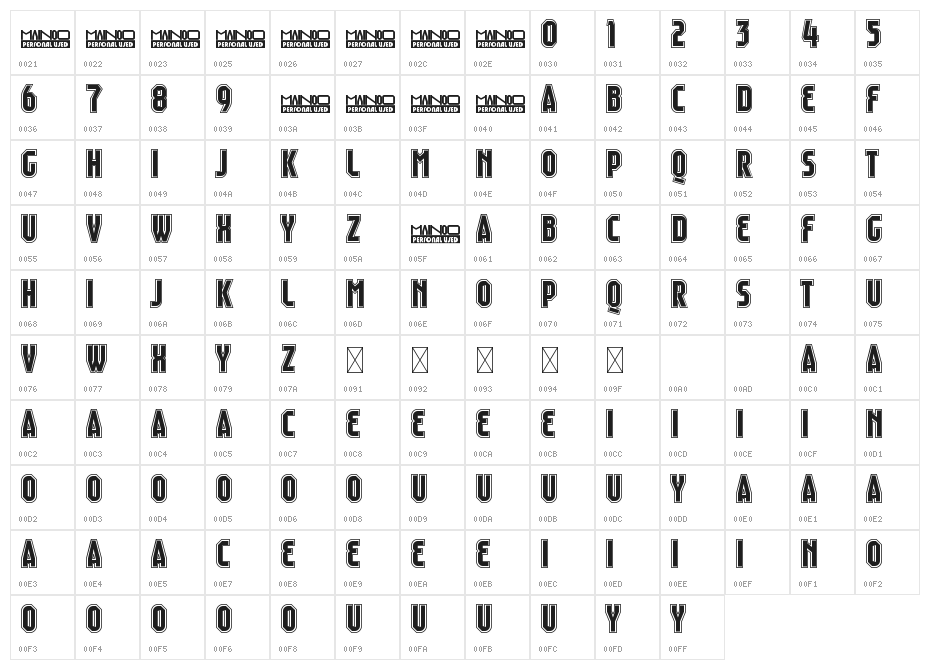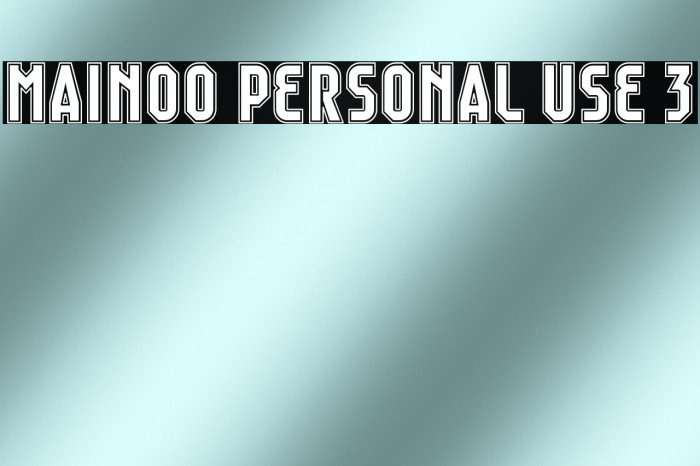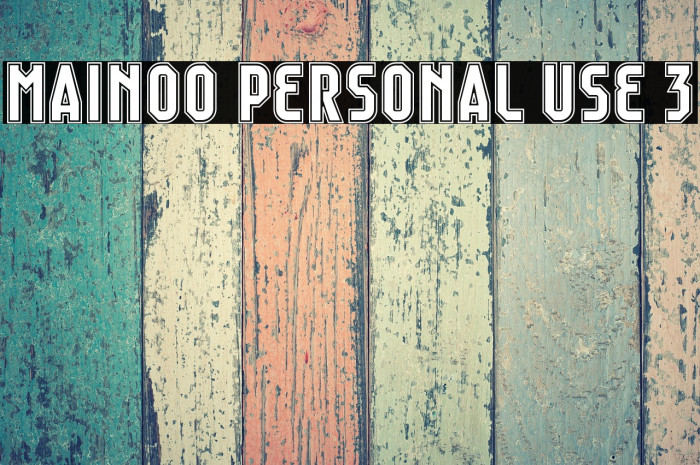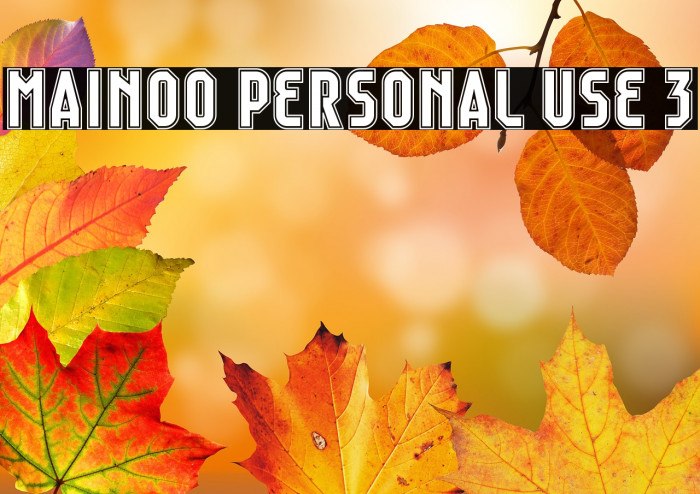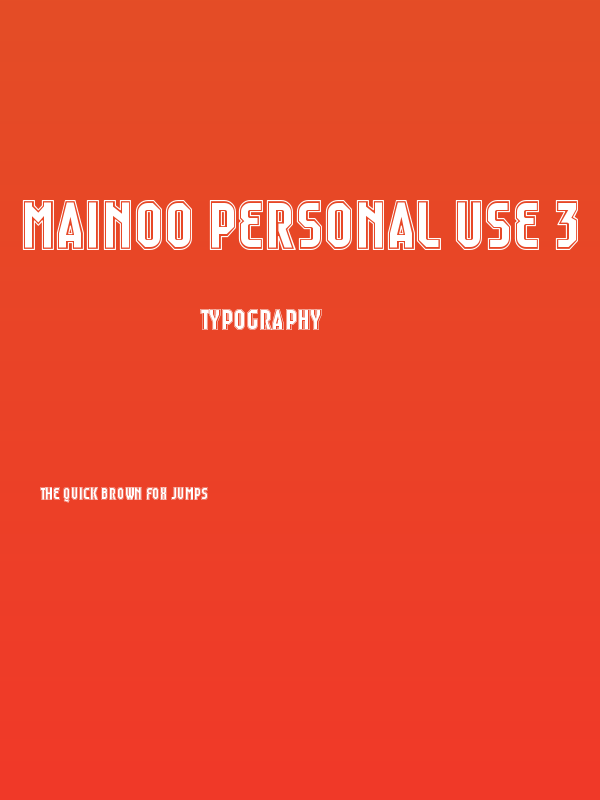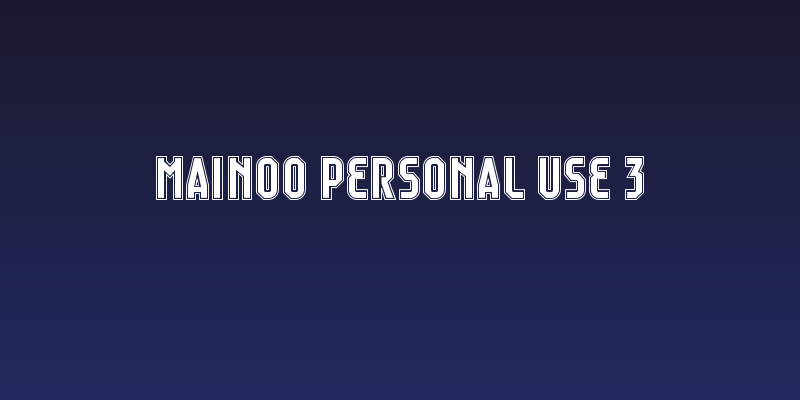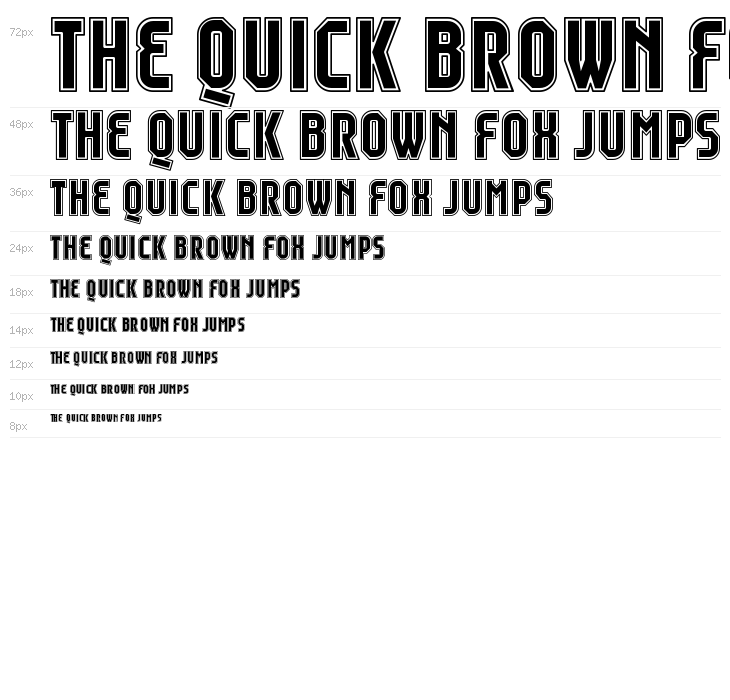
Mainoo Personal Use 3 Font
Mainoo Personal Use 3 Description
This font features a bold, geometric style with a strong presence and high readability. Each character is outlined, creating a striking contrast between the thick, solid interior and the thin, precise outer lines. The uppercase and lowercase letters maintain a consistent height, contributing to a uniform appearance. The numbers and special characters follow the same design principles, ensuring cohesion across all elements. The font's angular design and sharp edges give it a modern and dynamic feel, suitable for making a bold statement.